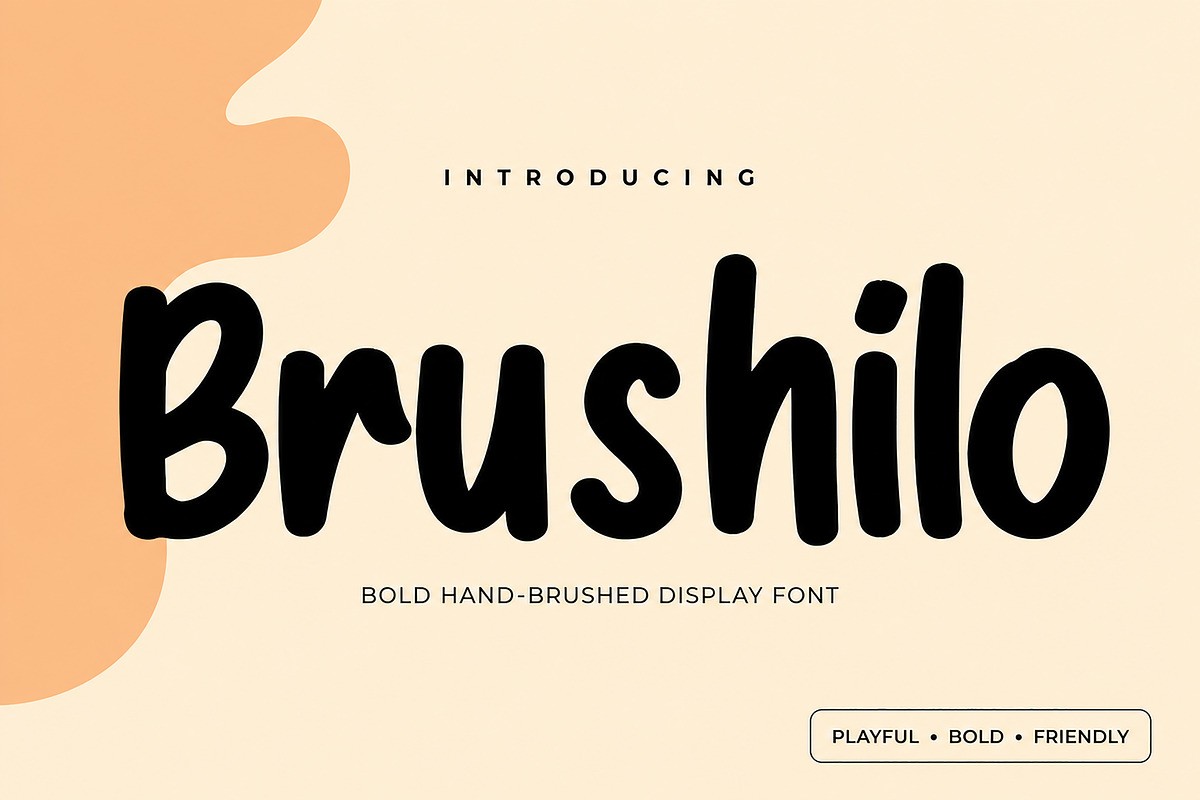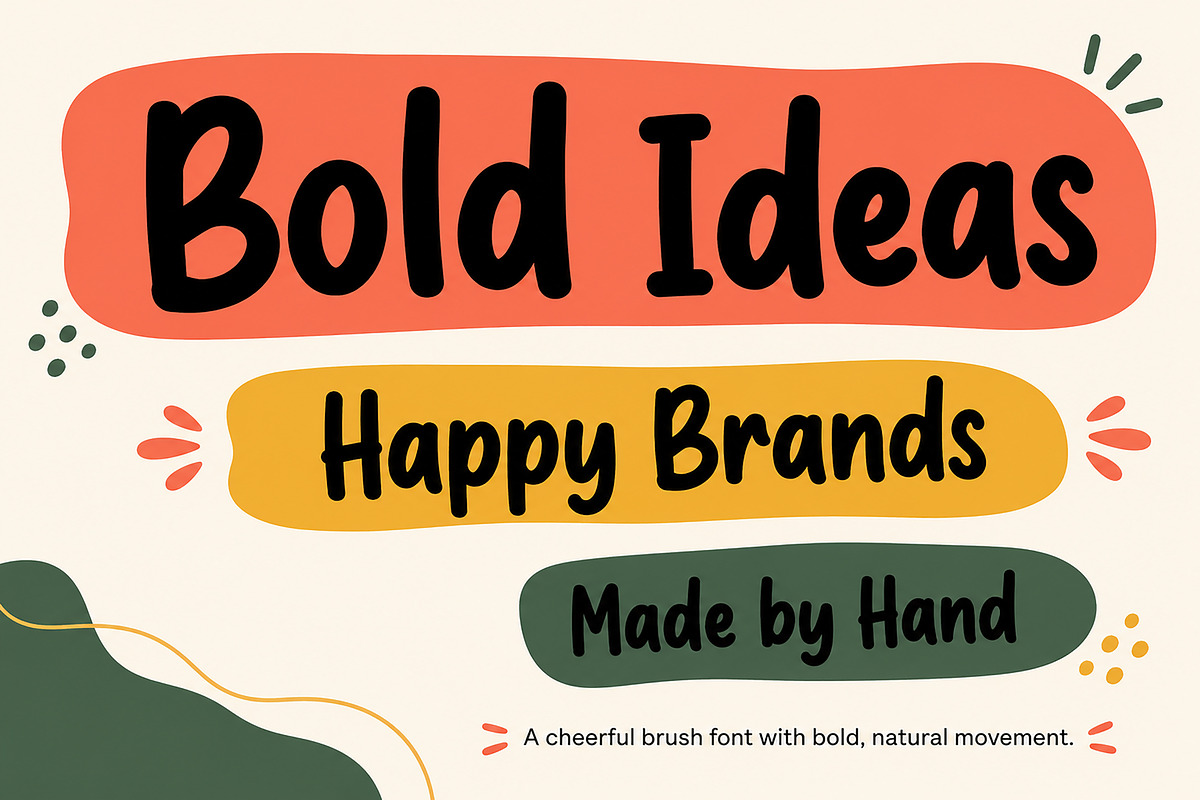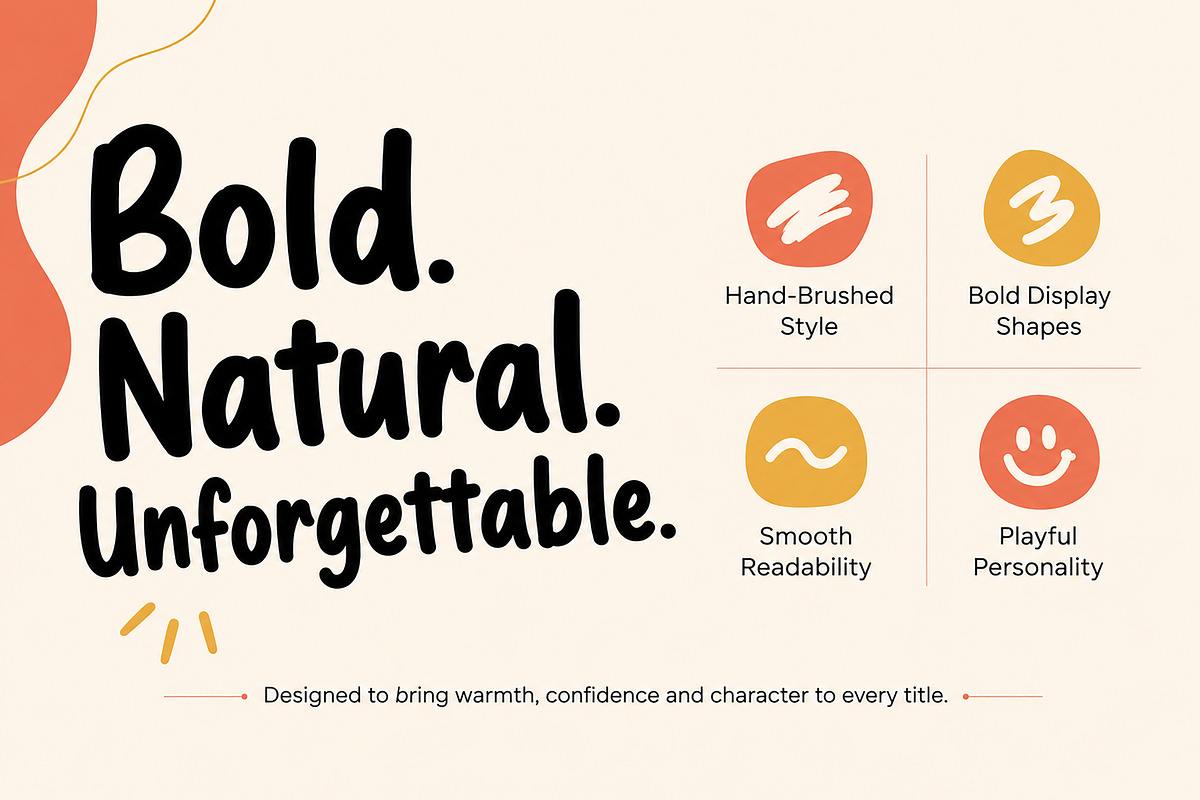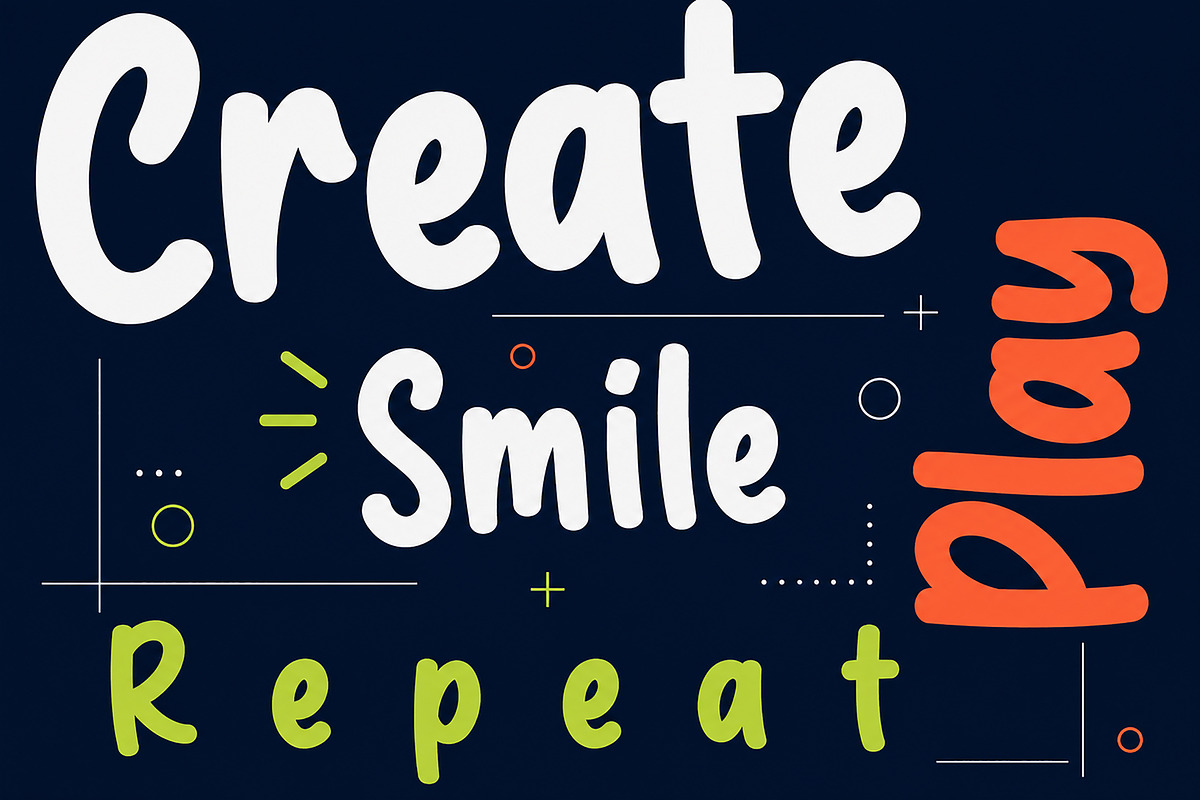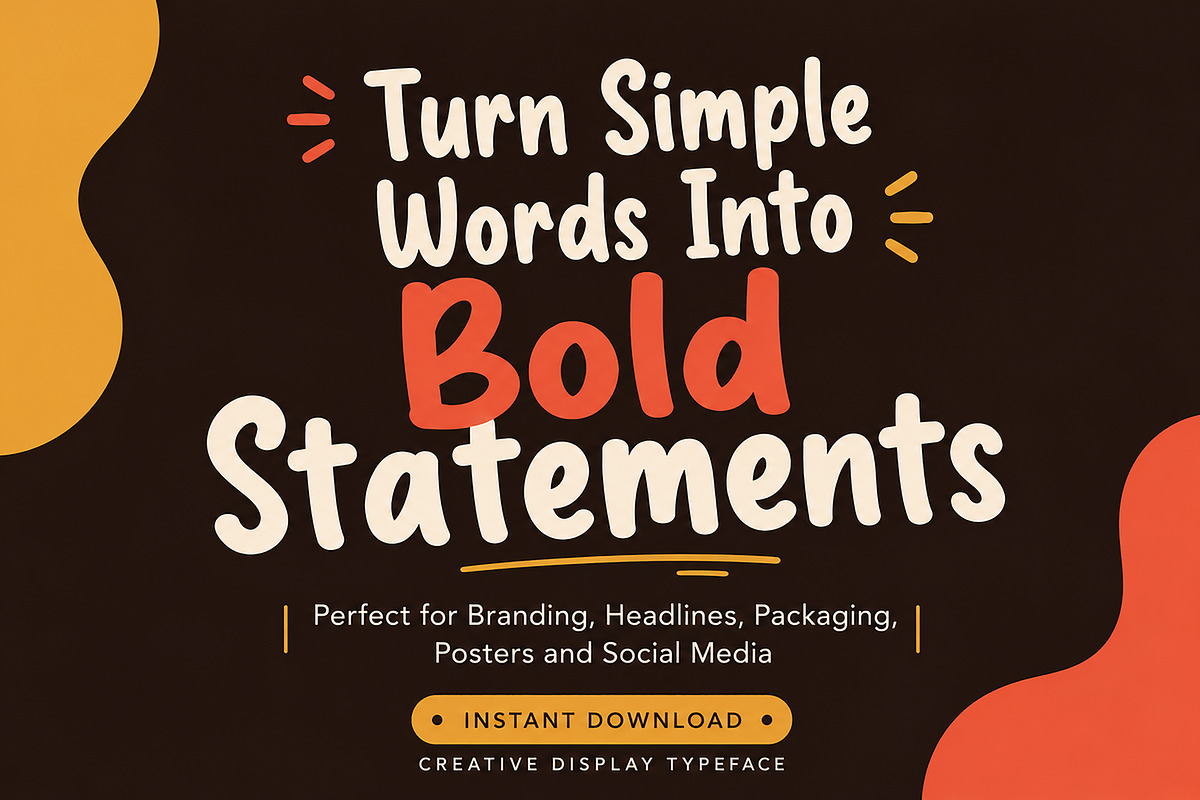
Brushilo
Brushilo – Bold Hand-Brushed Display Font
Brushilo is a bold, playful, and hand-brushed display font designed to make every word stand out. With its smooth curves, chunky letterforms, and handcrafted personality, Brushilo is perfect for creating eye-catching designs that feel warm, friendly, and full of energy.
Whether you're designing logos, branding, packaging, posters, social media graphics, or product labels, Brushilo adds a unique handcrafted touch that instantly grabs attention.
Its clean brush style makes it easy to read while maintaining an authentic handmade look, making it an excellent choice for both personal and commercial creative projects.
Branding
Packaging
Product Labels
Posters
Headlines
T-Shirt Designs
Stickers
Children's Products
Food Branding
Café & Restaurant Branding
Greeting Cards
Advertising
YouTube Thumbnails
Digital Marketing
Creative Projects
Bold Hand-Brushed Style
Smooth Curves
Clean Letterforms
Easy to Read
Perfect for Large Titles